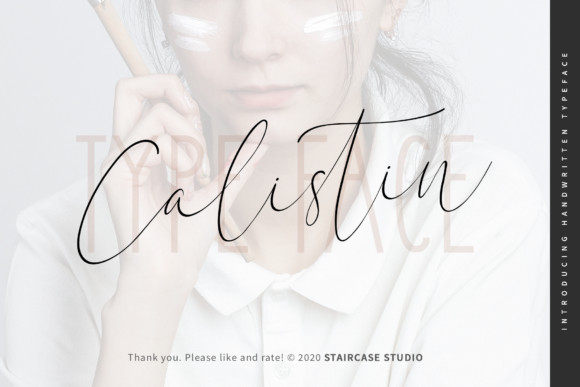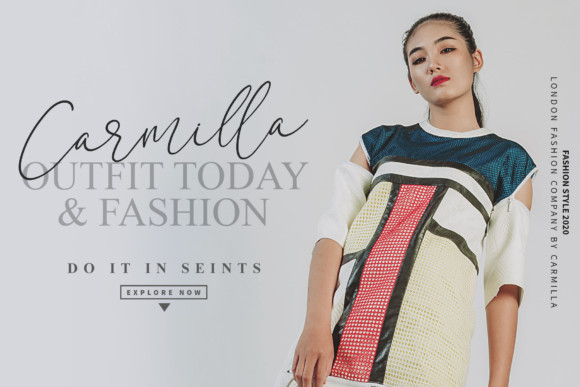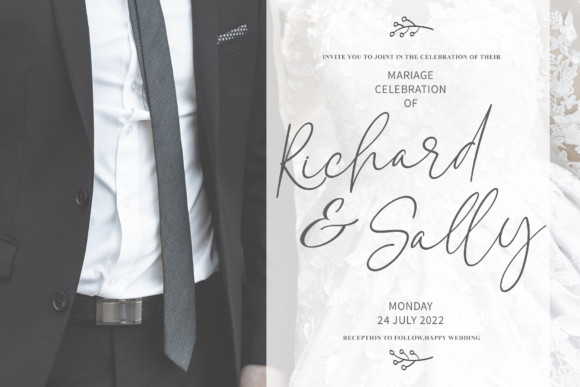
Calistin Font
Calistin is a flowing handwritten font, described by an elegant touch, perfect for your favorite projects. Fall in love with its incredibly distinct and timeless style and use it to create spectacular designs!